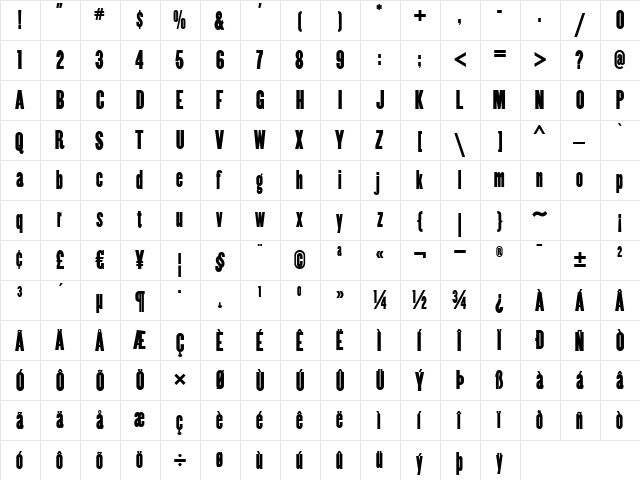
CopperCanyonWBW DemiBold
Design Context for CopperCanyonWBW Typeface
CopperCanyonWBW offers clean, dependable letterforms without strong stylistic allegiance, making it a practical choice for designers who need flexibility. Its bold stroke weight gives it real presence on the page.